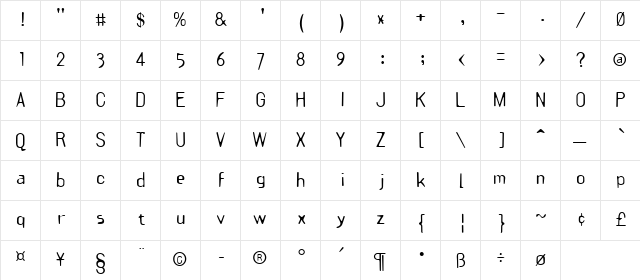
B0bmono Regular Free Font
B0bmono Regular
Design Context for B0bmono
B0bmono uses fixed-width spacing throughout, giving it the structured, systematic character associated with coding environments and technical documentation.
Pro Tip: Use B0bmono with slightly increased line-height for extended reading - fixed-width spacing can feel dense in longer passages without extra breathing room.